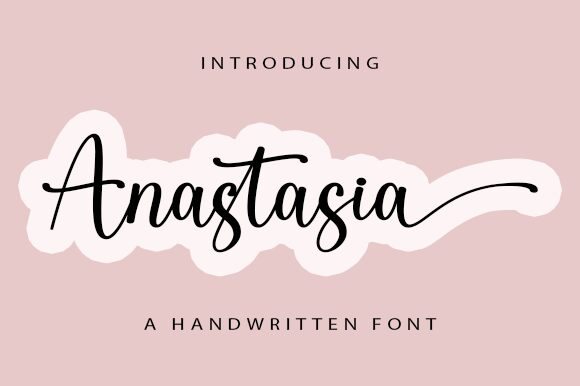
Anastasia, the latest font from Wahyu Studio, is a stunning semi-light handwritten typeface with a semi-condensed width. Its delicate curves and soft lines lend themselves perfectly to elegant designs for wedding invitations, blogs, and feminine branding projects. Anastasia's unique character also makes it suitable for use in children's books or whimsical illustrations. The font's exquisite detail and graceful flow ensure it stands out on packaging or in editorial layouts. Whether you're looking to add a touch of sophistication to your project or create something playful and imaginative, Anastasia is the perfect choice.
Anastasia
Wahyu Studio
Wahyu Setiyawan